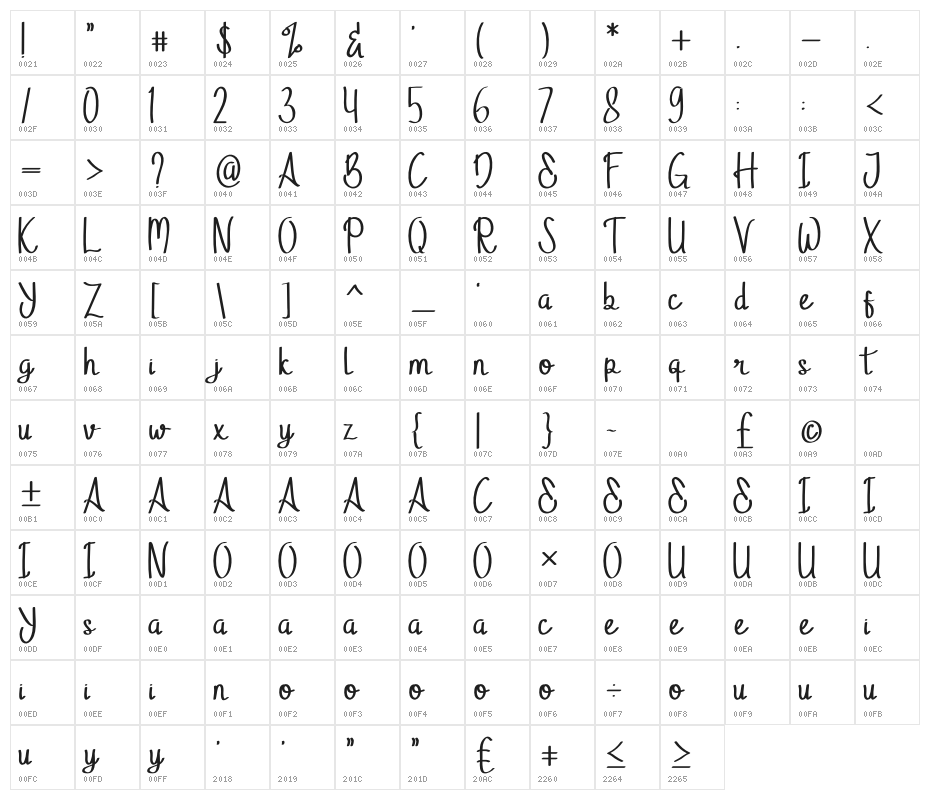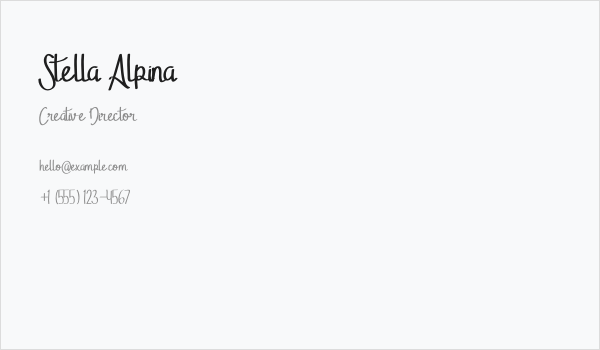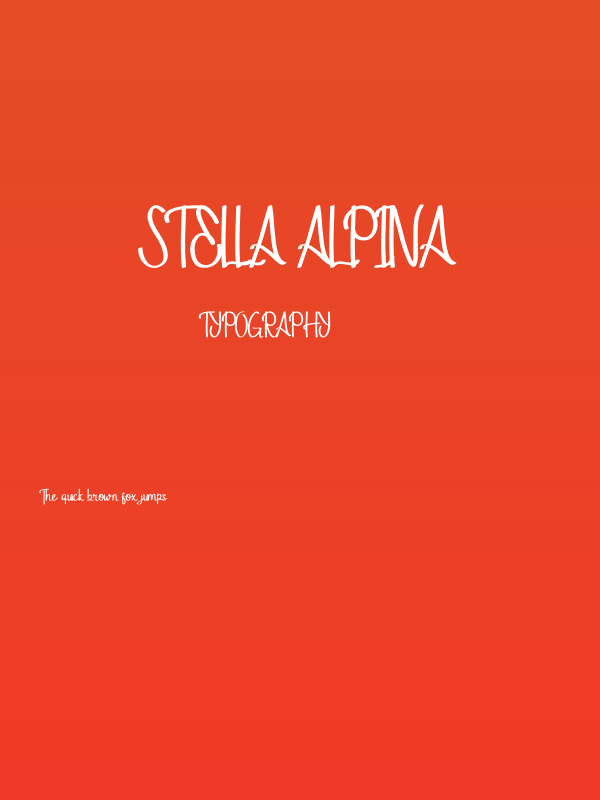
Stella Alpina Font
Stella Alpina Description
This font features a playful and whimsical style with a handwritten appearance. The letters are tall and narrow, with a slight slant that adds a dynamic flow to the text. The strokes are smooth and consistent, giving it a casual yet elegant look. The uppercase letters are bold and prominent, while the lowercase letters maintain a consistent height, creating a harmonious balance. The numbers and special characters follow the same stylistic cues, ensuring uniformity across all elements. This font exudes a sense of creativity and spontaneity, making it ideal for projects that require a personal touch.
| Proposed Projects | Ideal for greeting cards, invitations, personal branding, and creative projects. |